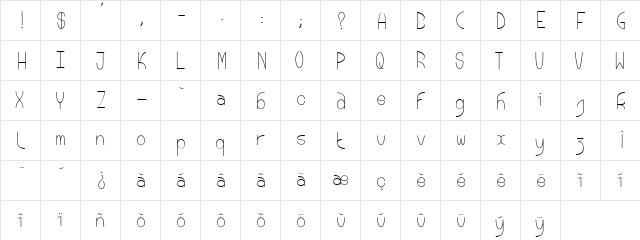
Bouddha Moon Regular
| Foundry | dcoxy Medina Gregory |
| Designer | dcoxy Medina Gregory |
Design Context for Bouddha Moon Typeface
Bouddha Moon takes a measured approach to typography — its balanced proportions and neutral character make it a reliable workhorse for both digital and print work.